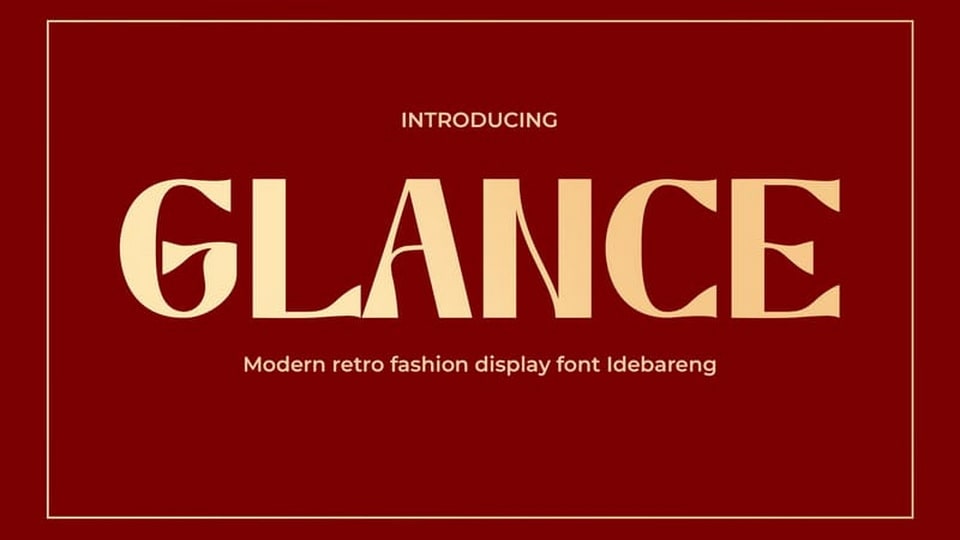
Download Glance font, the modern retro fashion display typeface that is perfect for any business looking to make a bold statement with their brand. Glance font seamlessly combines classic and modern design elements, making it an ideal choice for companies in the fashion industry or any business looking to convey a sense of style.
Designer: IDEBARENG